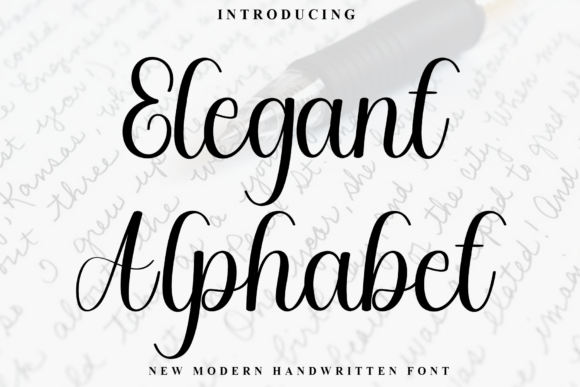
Discover the Magic of Elegant Alphabet Font
Do you remember the moment when a simple phrase, scribbled on a napkin, sparked an idea for your next creative project? For designers, it’s often the little things that set our imagination ablaze. And what better way to bring those ideas to life than with a font that exudes elegance and sophistication?
Enter the Elegant Alphabet Font, a timeless handwritten font that’s perfect for creating eye-catching logos, branding, and quotes. Its unique and beautiful touch will make your design come alive, leaving a lasting impression on your audience. Whether you’re a seasoned designer or just starting out, the Elegant Alphabet Font is a valuable addition to your toolkit, offering a level of sophistication and refinement that’s hard to find in other fonts.
Elegant Alphabet Font Key Features
- Unique Characteristics: The Elegant Alphabet Font features elegant, cursive script with refined connections, making it ideal for invitations, wedding stationery, and other formal designs.
Elegant Alphabet Font Review
Overall, I found the Elegant Alphabet Font to be a visually stunning choice for any project. The beautiful, flowing lines and delicate flourishes make it perfect for adding a touch of sophistication and elegance to your design.
- Unique, hand-crafted design elements that add character to your text.
- Excellent legibility, making it suitable for both body text and headings.
- Works well with a variety of backgrounds and color schemes.
- The font is quite ornate, which may make it difficult to read at very small sizes.
- The delicate lines can be prone to pixelation when used at low resolutions.
- The font may not be suitable for projects that require a more modern or minimalist aesthetic.
Overall, I would highly recommend the Elegant Alphabet Font for projects where you want to add a touch of elegance and sophistication. While it may have some limitations, its unique design elements and excellent legibility make it a great choice for the right project.
Tips for Getting the Most Out of Elegant Alphabet Font
1. Use it sparingly to add a touch of elegance to your designs.
2. Experiment with different font sizes and colors to create visual interest.
3. Pair it with other elegant fonts or graphics to create a cohesive look.
2. Luxury branding and marketing materials.
3. High-end packaging and labels.